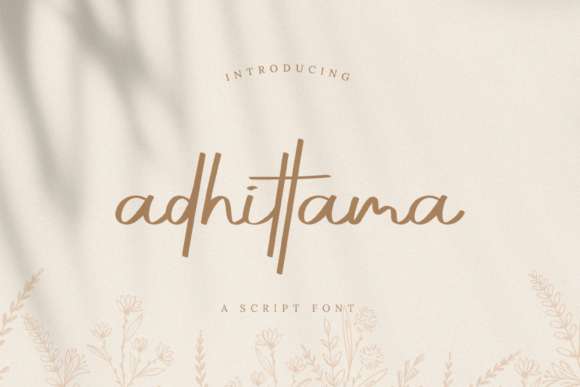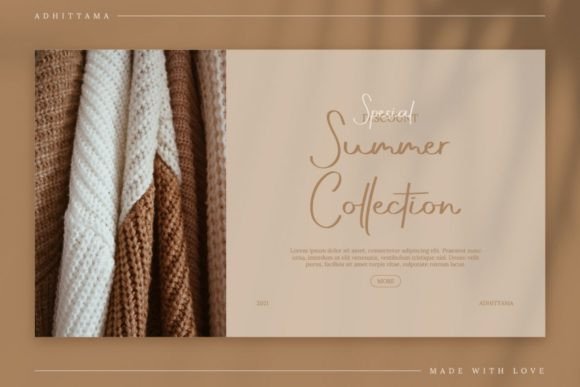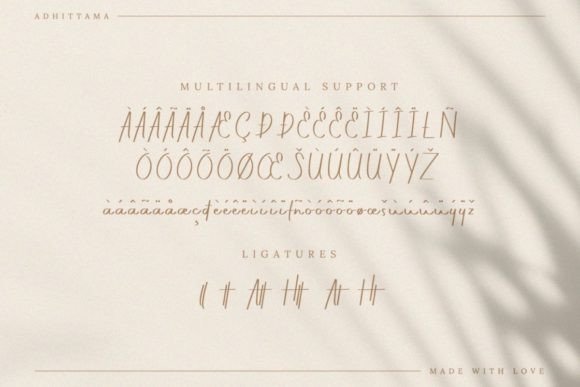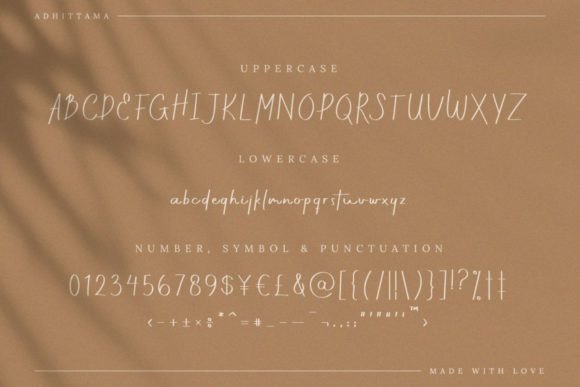
Adhittama Font: Elegant Handwritten Script for Wedding & Branding!
About the Adhittama Font
Crafted with precision, the Adhittama Font is ready to bring your ideas to life. Adhittama is adapted from two types of Script fonts, these are Signature and Handwritten types.
Because it is a Handwritten Font, “Adhittama” is appropriate to use for lettering, post card, wedding invitation, greeting card, decorations, brands, etc. It will make the design look more artistic, elegant, and eye-catching because it has the classical vibes of the Signature Font.
Adhittama’s elegant and slightly formal tone makes it ideal for branding projects requiring a touch of sophistication, particularly logos, short headlines, and packaging design where its artistic flair can shine. It also works well for stationery and wedding invitations, as initially suggested. However, its decorative nature makes it unsuitable for body text or UI elements where readability is paramount. Avoid using it in long paragraphs or for web content.
Pairing Adhittama effectively requires a contrasting font to balance its script style. A clean sans-serif like Lato or a modern geometric sans-serif such as Roboto would provide excellent contrast and improve legibility in supporting text. For a more traditional feel, consider pairing it with a classic serif font like Garamond or a slightly more modern serif like Playfair Display.
The overall personality of Adhittama is refined and sophisticated, yet approachable. It projects an air of timeless elegance without feeling overly stuffy, making it a versatile choice for brands aiming for a balance of classic style and contemporary appeal.